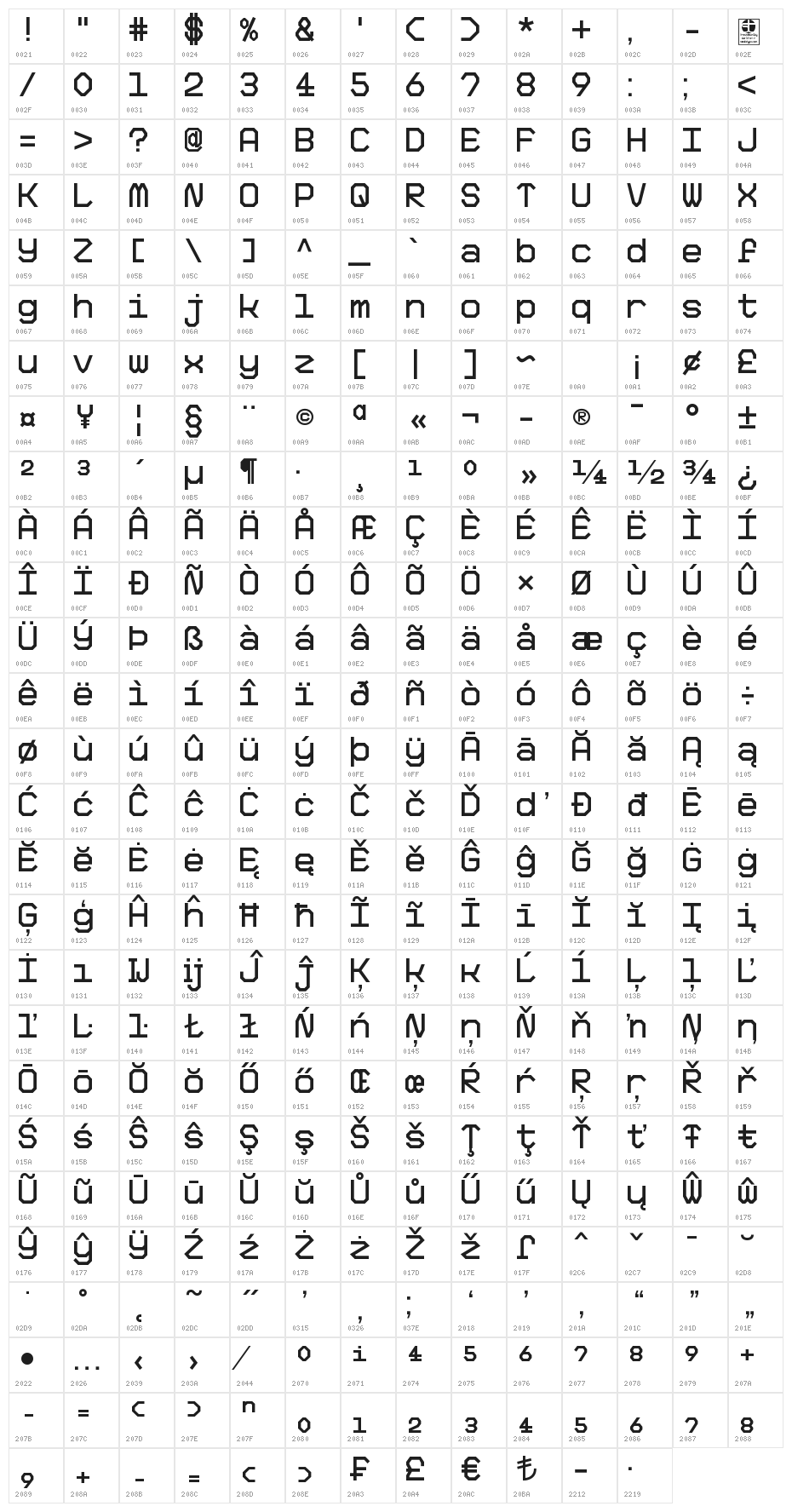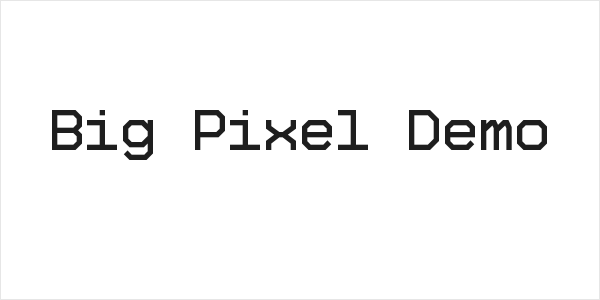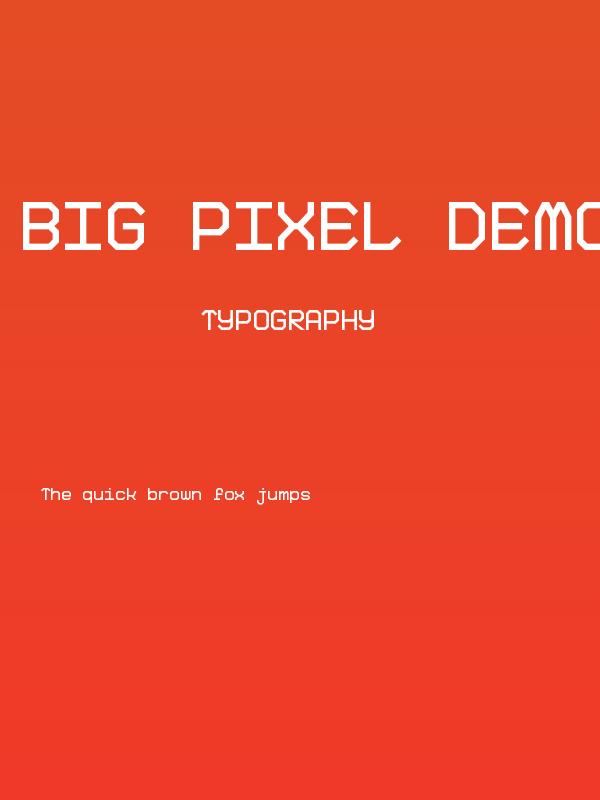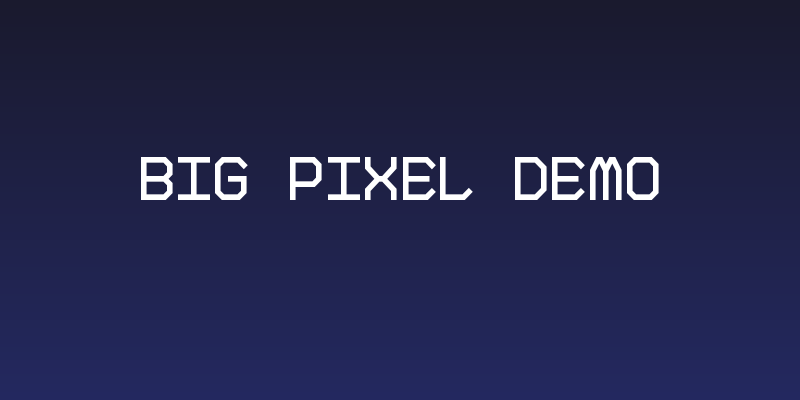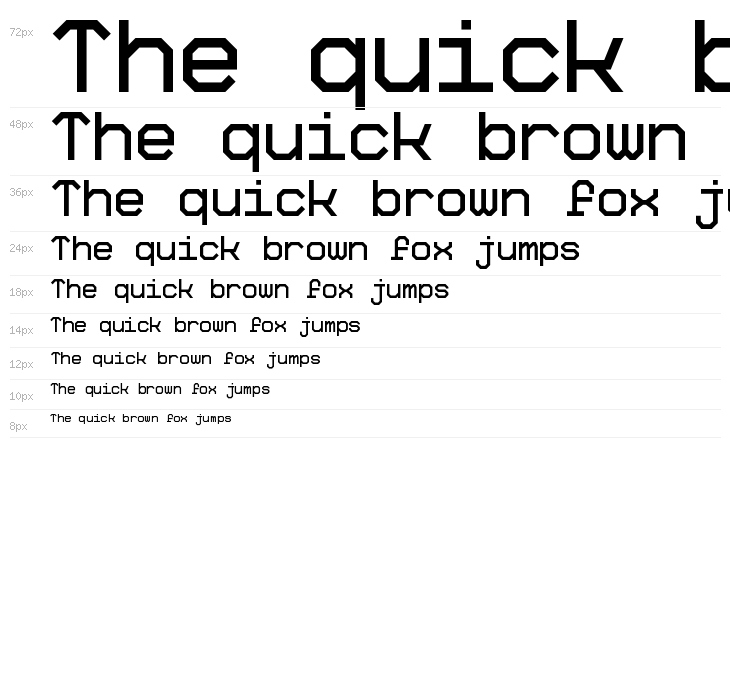
Big Pixel Demo Font
Big Pixel Demo Description
This font features a bold, geometric design with a pixelated aesthetic reminiscent of early digital displays. The characters are constructed with sharp, angular lines and uniform stroke widths, creating a cohesive and structured appearance. The uppercase and lowercase letters maintain a consistent style, with the lowercase being slightly smaller in height but equally bold. Numbers and special characters follow the same design principles, ensuring a harmonious look across all glyphs. The font's distinct, blocky style makes it highly legible and eye-catching, ideal for projects that require a retro or tech-inspired theme.
Overall StyleRetro, Digital
Use CaseHeadlines, Logos, Digital displays
Proposed ProjectsIdeal for video game graphics, tech-themed posters, digital art projects, and retro-style branding.